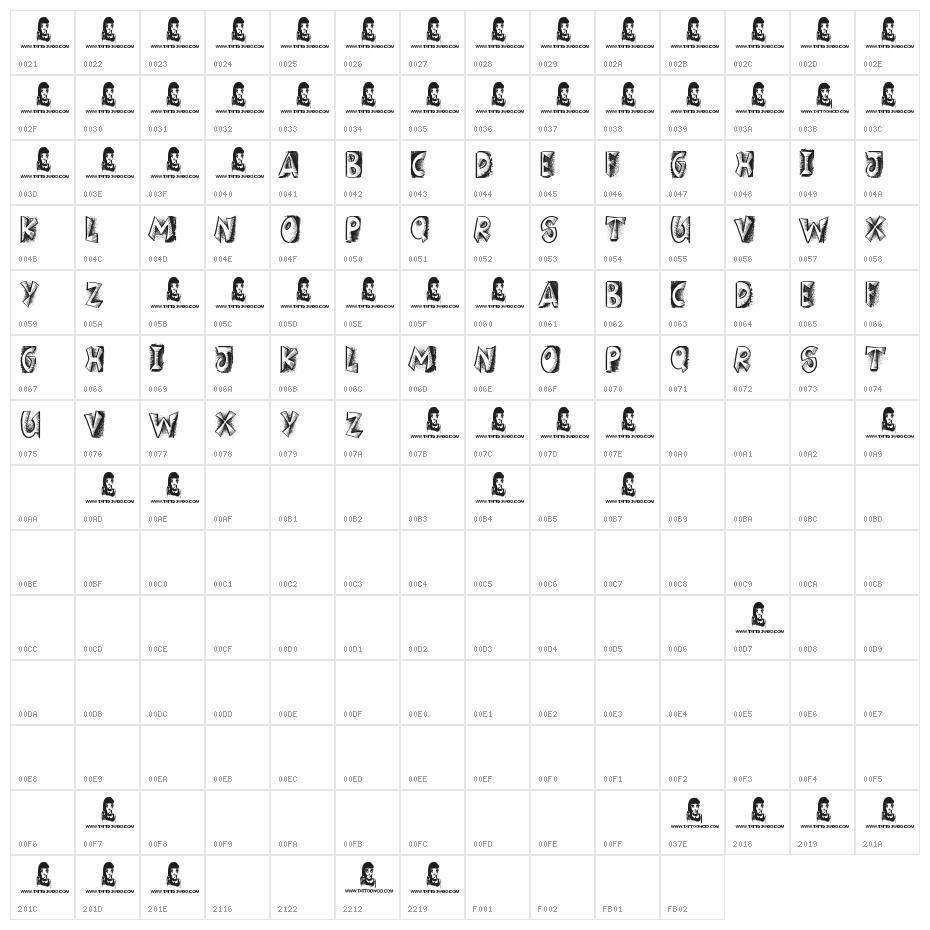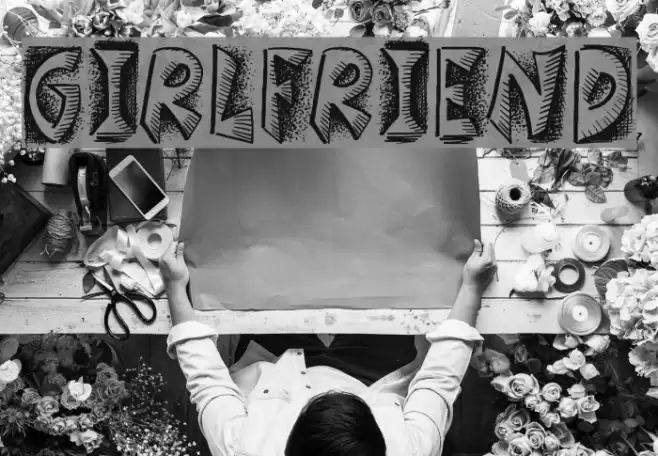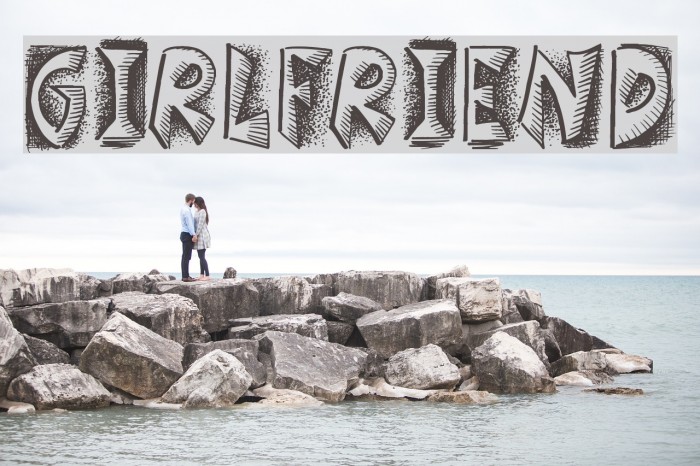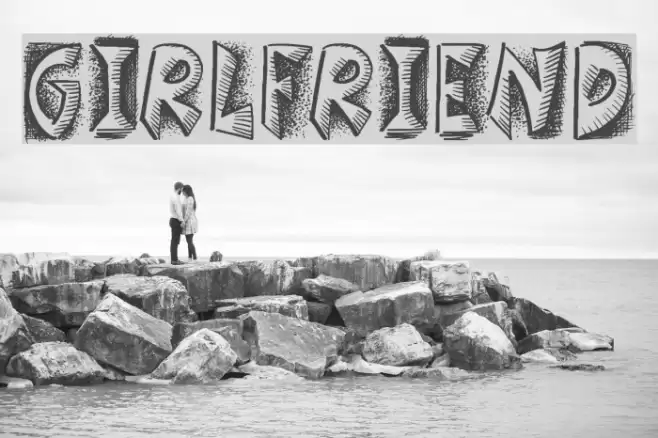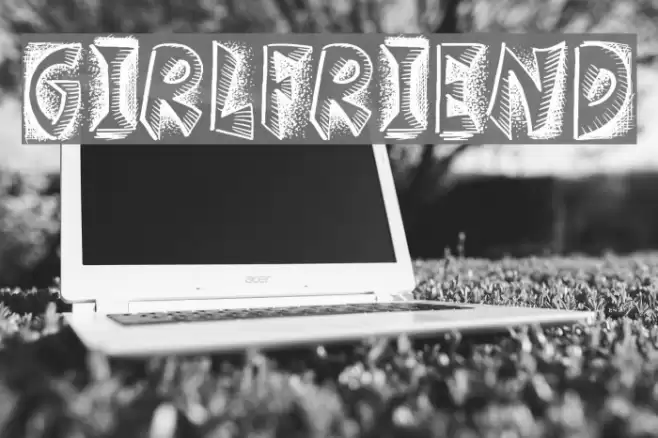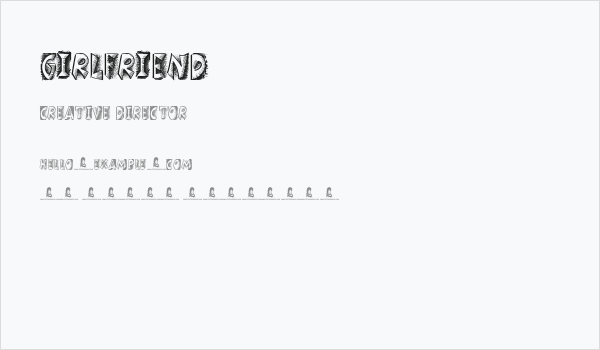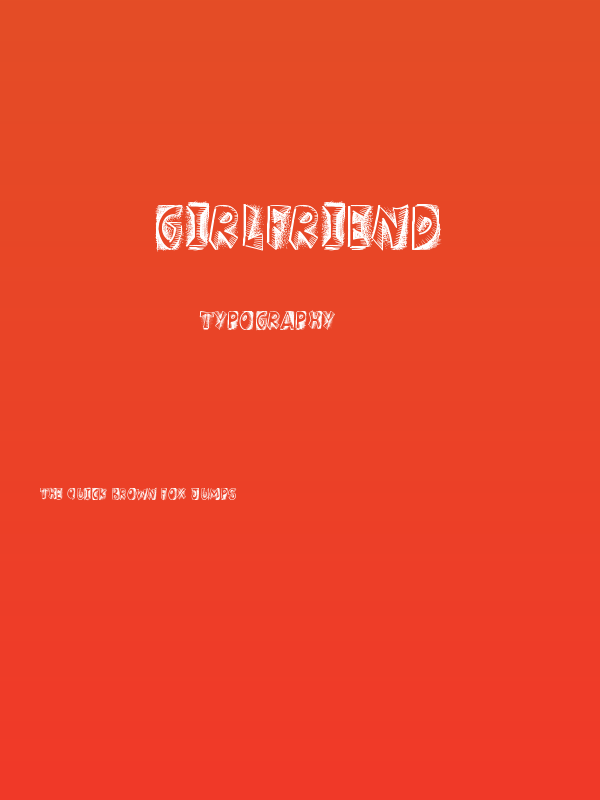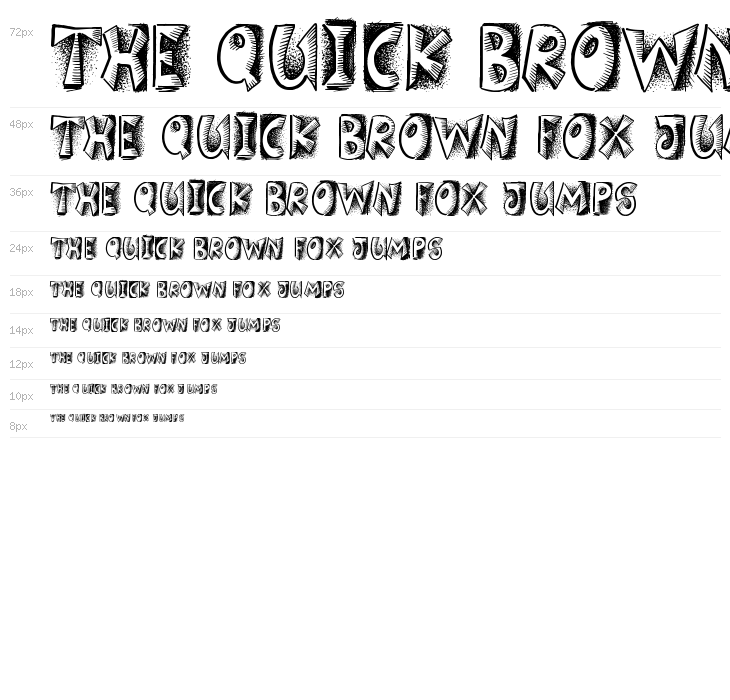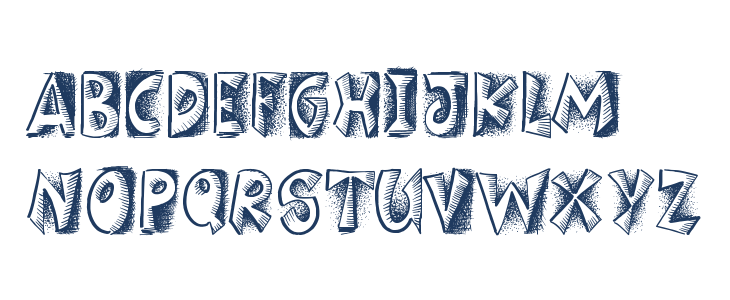
Girlfriend Font
Girlfriend Description
This font features a bold and dynamic style with a hand-drawn, sketch-like appearance. Each character is filled with intricate line work and shading, giving it a textured, three-dimensional look. The letters are uppercase and have a playful, cartoonish quality, making them stand out with their unique artistic flair. The font's design is reminiscent of comic book art, with exaggerated forms and a sense of movement. The bold strokes and detailed patterns within each letter create a visually striking effect that captures attention.
| Proposed Projects | Ideal for comic book titles, posters, graphic novels, and creative branding projects. |